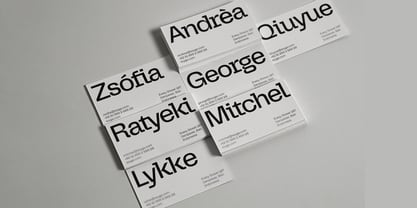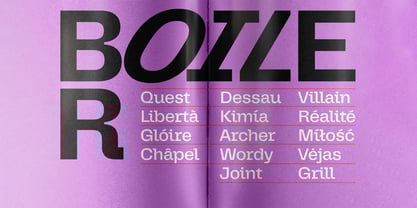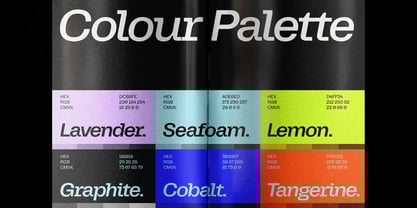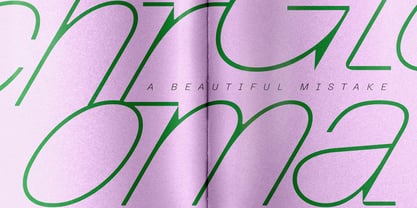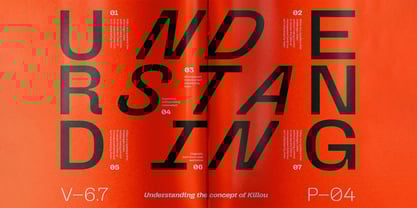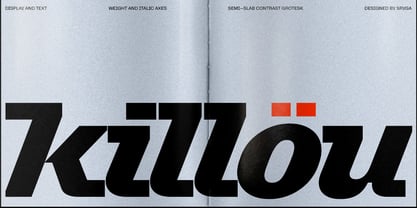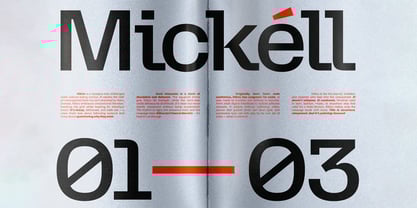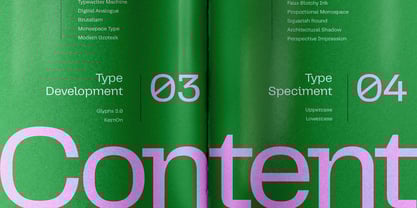
Killou
by Sryga
Killou doesn’t follow the rules — it rewrites them. With the soul of a monospaced typewriter and the freedom of proportional design, Killou breaks out of the grid with bold, wide-set forms and semi-slab punches that refuse to blend in. It’s precise but never polite. Structured, but never submissive.
Born from the world of coding fonts and reimagined for bold visual systems, Killou balances mechanical strength with raw attitude. Its squarish skeleton delivers impact, while sharp cuts and tight details push back against tradition. This is a typeface made for disruption — not decoration.
Killou is built for voices that demand attention. From rebellious branding to uncompromising editorial work, it delivers presence, grit, and clarity in every weight. It’s not here to whisper — it stares back.